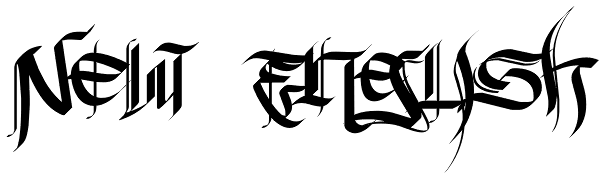
New English
With 2 full alphabets & a full array of symbols & decorations this style can look elegant or insane. New English is easy to customize for infinite unique looks.
New English Font